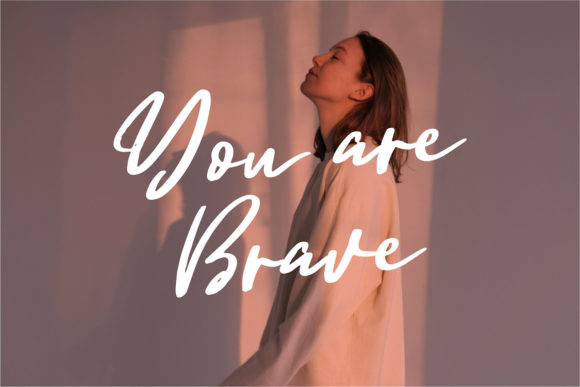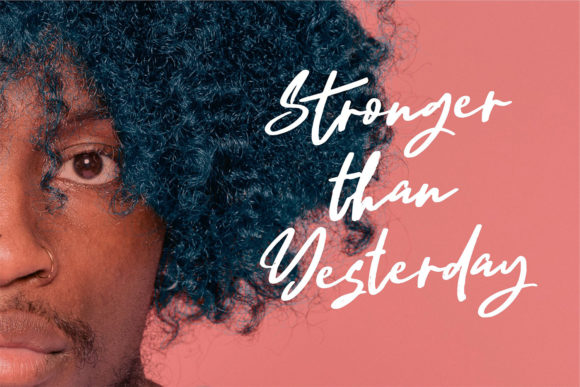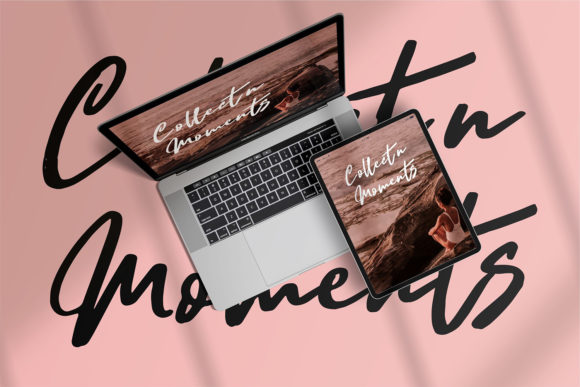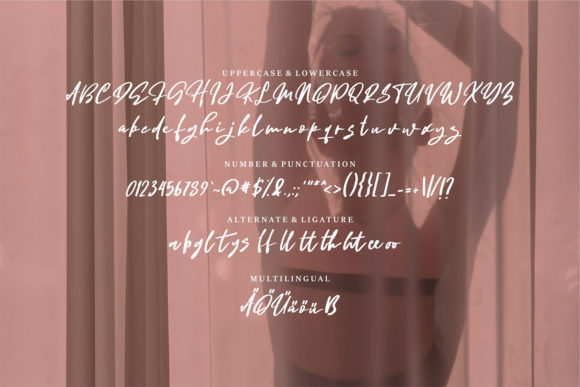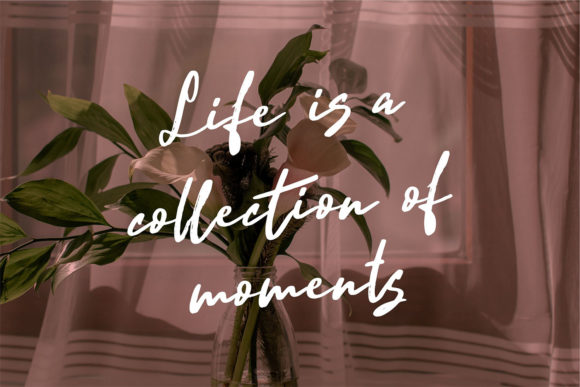
Staghil Script Font
About Staghil Script Font
**Staghil | A Masculine Script** with a calligraphy style. It will look so beautiful on invitations, greeting cards, branding materials, business cards, quotes, posters, and more!